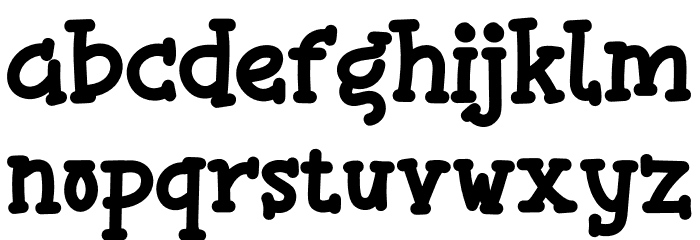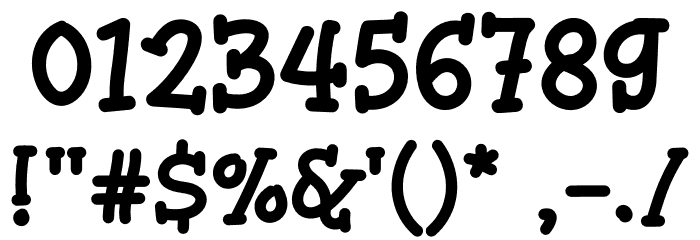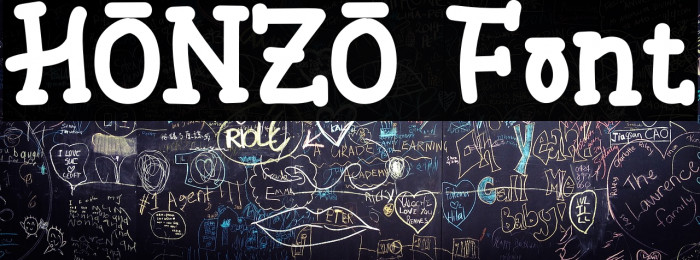
HONZO Font
This font features a playful and bold design with rounded edges and a slightly irregular stroke, giving it a whimsical and friendly appearance. The characters are well-defined with a consistent thickness, making them easy to read while maintaining a unique style. The uppercase and lowercase letters are distinct, with the lowercase having a slightly more casual feel. Numbers and special characters are included, matching the overall playful aesthetic. This font is ideal for projects that require a fun and approachable look, such as children's books, playful branding, or creative posters.
A playful, bold font with rounded edges and a whimsical style.
- Proposed Projects: Children's books, playful branding, creative posters, party invitations.
- Overall Style: Playful, Whimsical